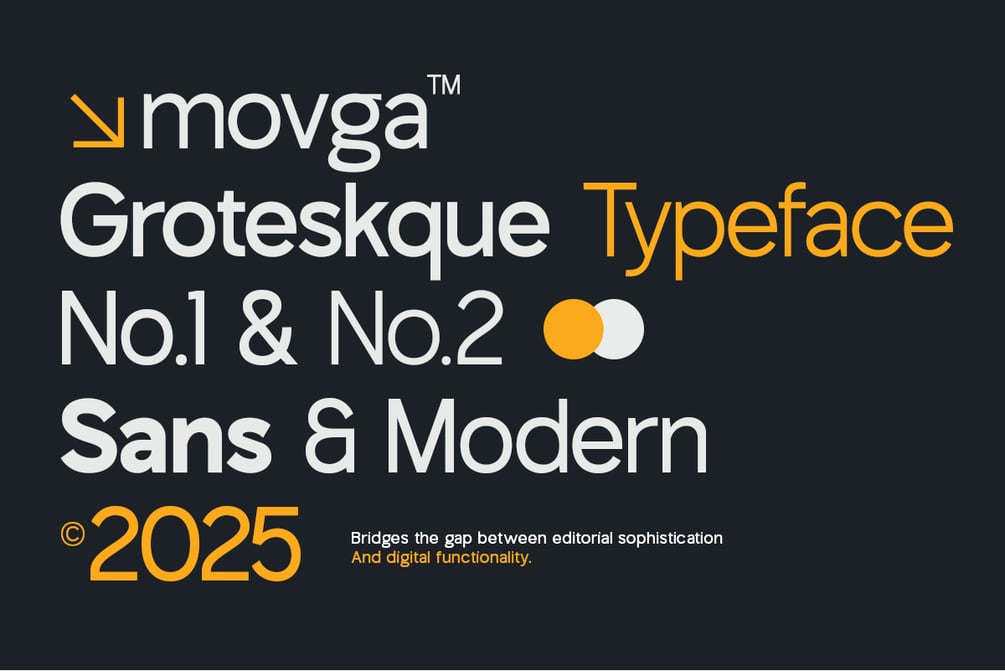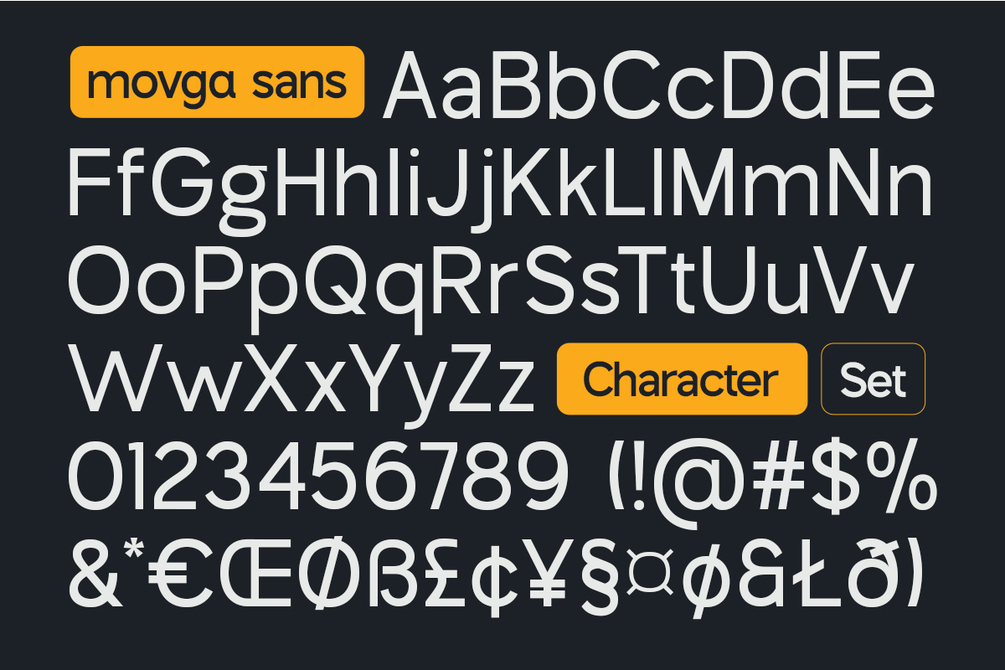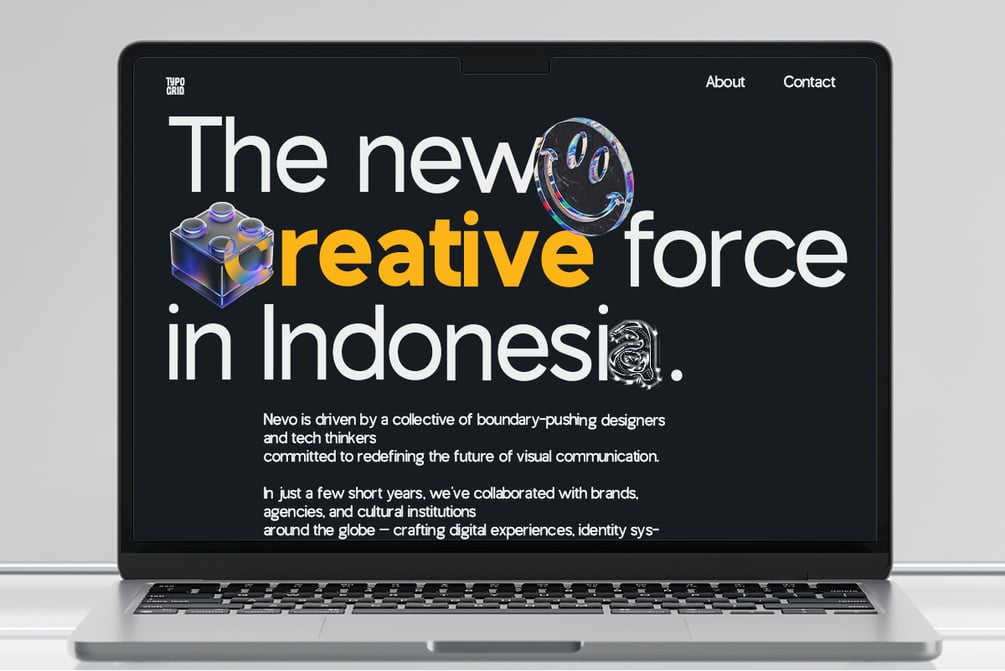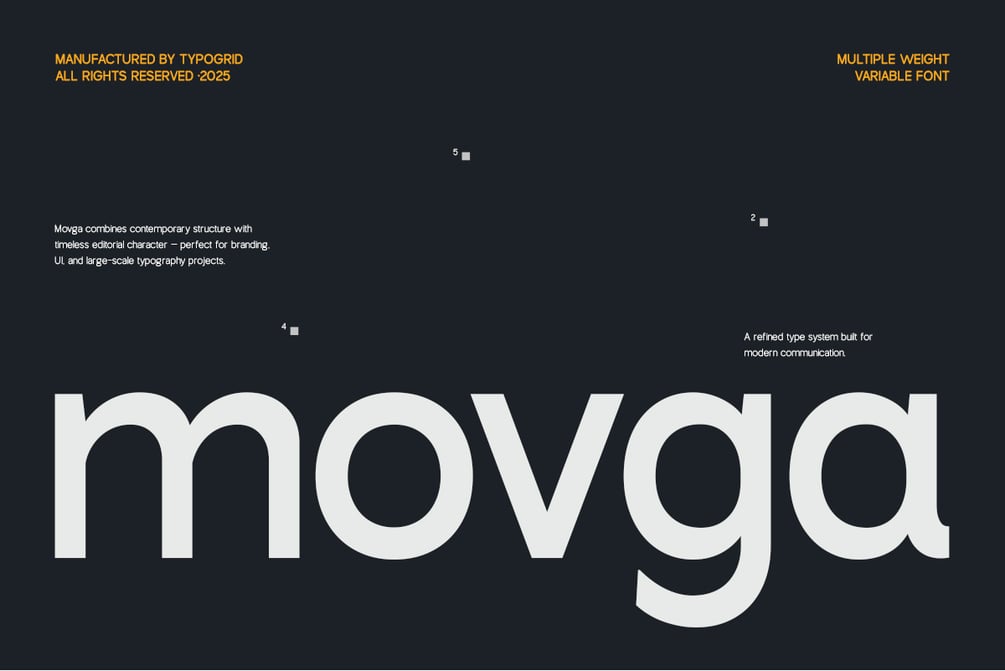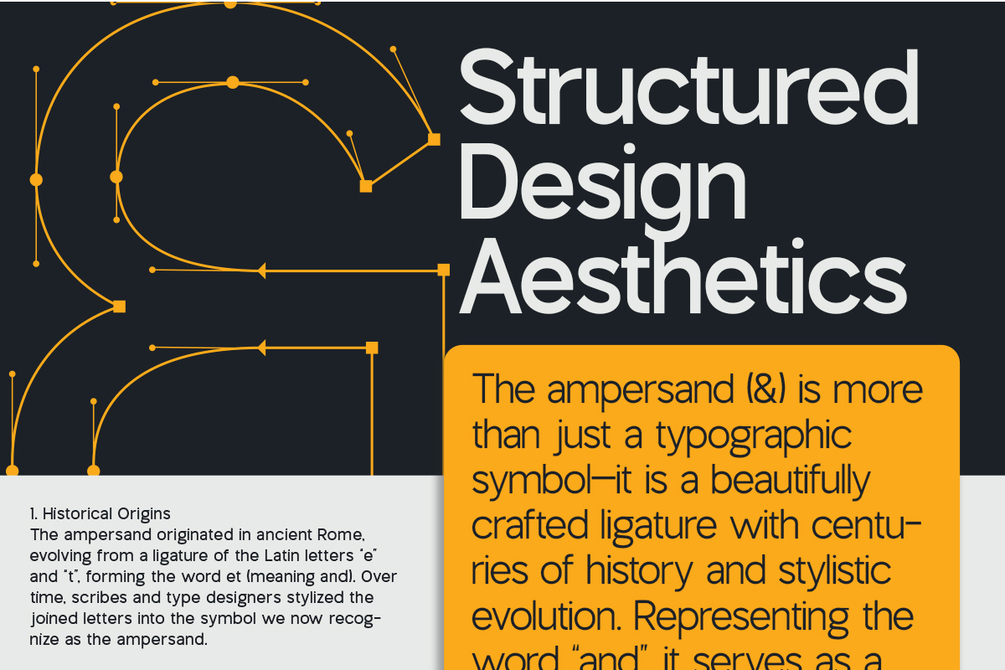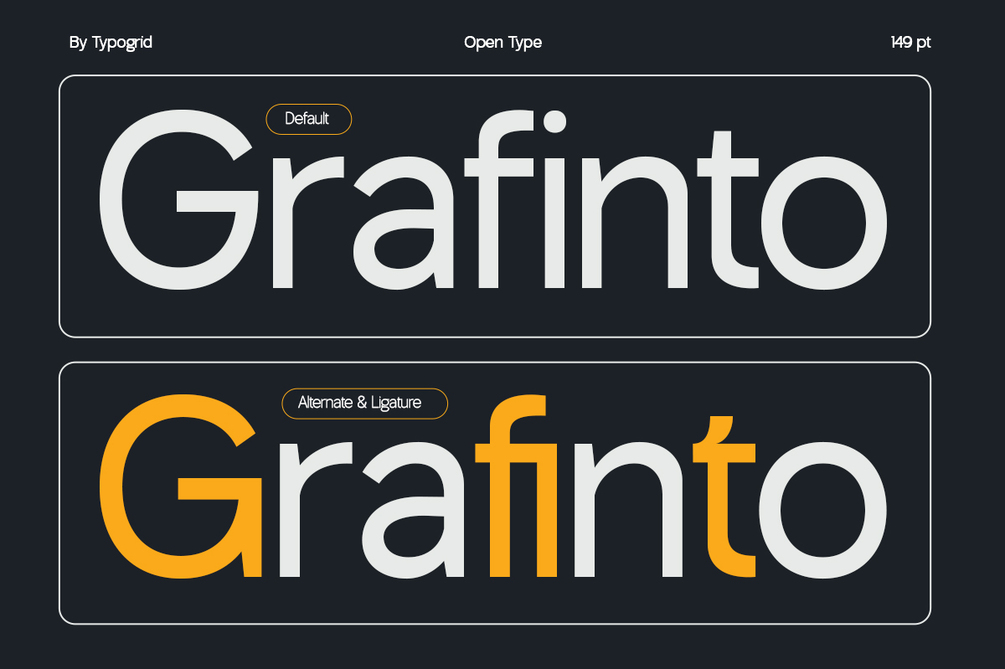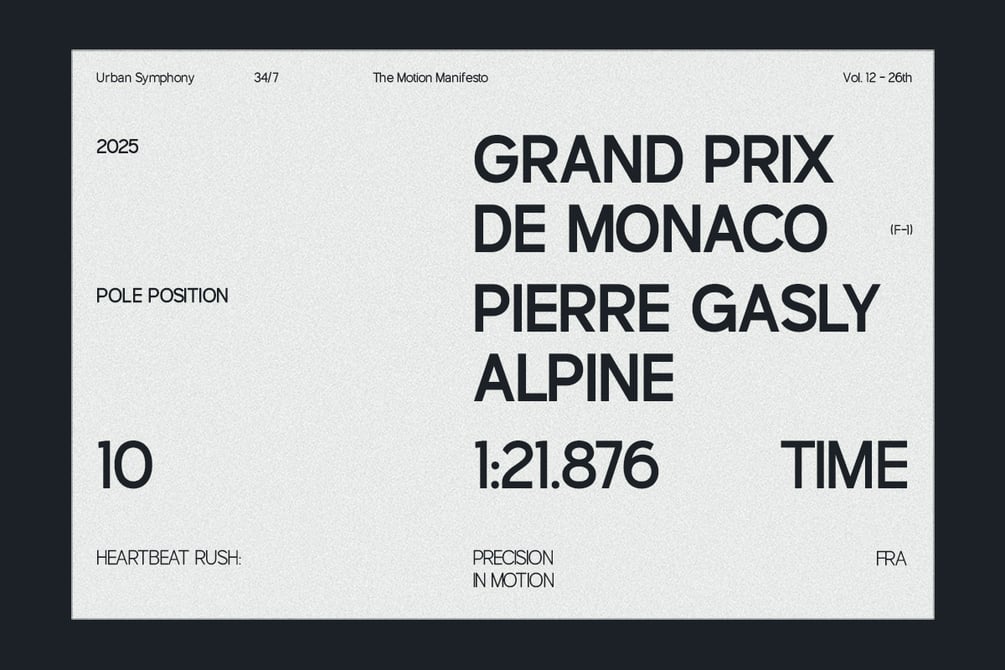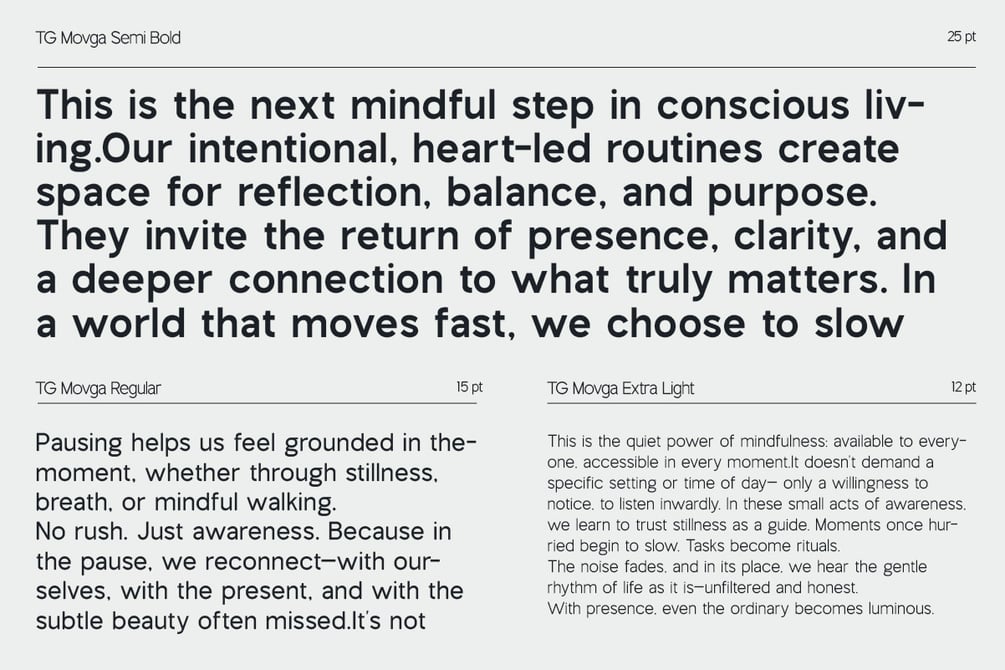
TG Movga - Modern Sans Grotesque
Have you ever struggled to find the perfect font?
A font that's not only pleasing to the eye but also functions optimally in today's digital age? Well, TG Movga is here to answer that dilemma.
Imagine a font that... bridges the gap between editorial sophistication and digital functionality. Yes, that's what TG Movga offers — a revolutionary modern sans serif from Typogrid.
See how TG Movga appears before us today. With its clean yet distinctive design, this font isn't just an option, it's a solution. Every curve and line has been meticulously designed to ensure optimal readability, whether on your smartphone screen or in a premium print magazine.
Why is TG Movga different? Because this font understands the needs of the times. In an era where content must appear flawlessly across multiple platforms — from websites to mobile apps, from posters to presentations — TG Movage provides the visual consistency you need.
So, are you ready to experience the difference TG Movga makes? Let's explore more deeply how this font can transform the way you communicate visually.